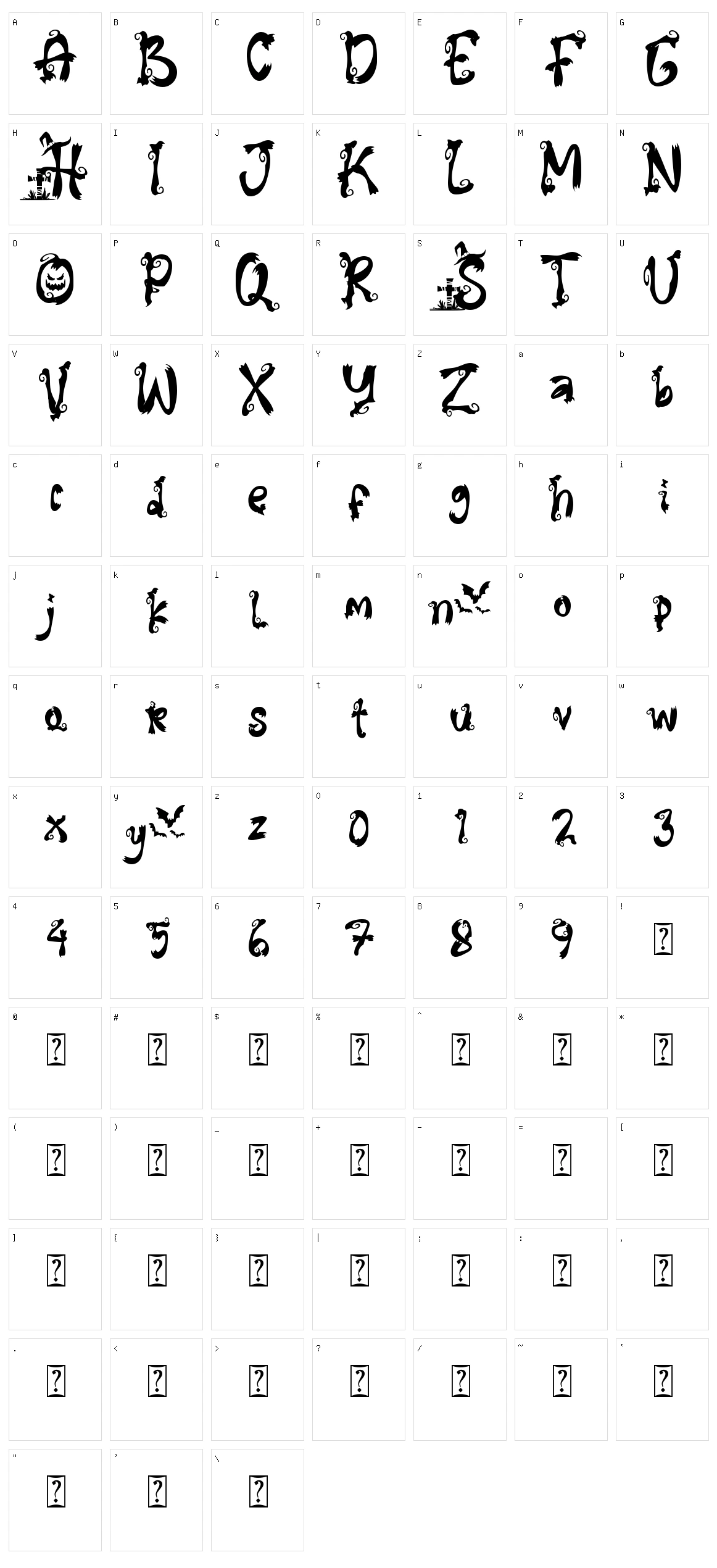
The free font Spooky Halloween is carefully designed by Creaditive Design, showcasing a thoughtful balance of creativity and usability and falls under the Halloween font style. When you download the ZIP file, it contains only 29.67 KB of font files, making it lightweight and quick to download. Please review the license details below to understand permitted usage and distribution rights. If license information is not available, we recommend using this font for personal projects only or contacting the author directly for commercial usage permissions.